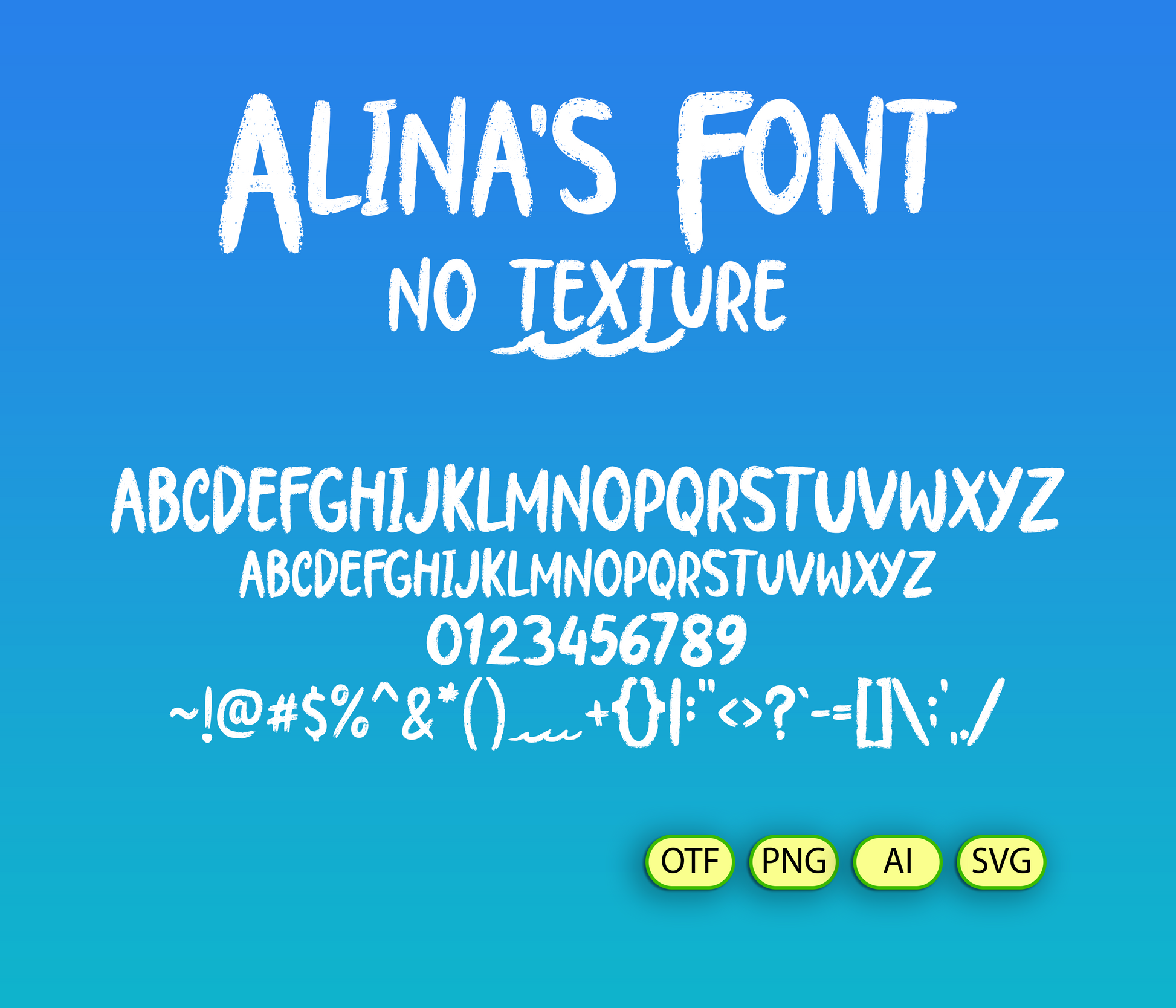
Silenzio Bruno Adventure Font
Capture the charm and whimsy of the Italian Riviera with our Adventure font, perfect for evoking the playful and heartwarming spirit of a beloved animated film. Ideal for fans, event planners, and designers looking to bring a touch of coastal magic to their projects, this font ensures your creations resonate with joy and friendship.
Inspired by the picturesque setting and adventurous tale of a young boy and his friends, this font features smooth, flowing lines and casual, hand-drawn aesthetics that mimic the artistic style of the film. It's designed to evoke feelings of sunny days by the sea and carefree childhood escapades. The complete character set includes uppercase and lowercase letters, numbers, and special symbols, making it versatile for a broad array of uses:
Our Adventure font is not just a tool for typography; it’s a way to bring the enchanting world of the story into your creative endeavors. Whether you’re designing promotional materials for a summer festival, creating custom merchandise, or enhancing educational content, this font lets you channel themes of friendship and discovery in every word and design. Ready to make your projects as lively and memorable as a scooter ride along the Italian coast? Let this font help you capture the essence of an adventurous magical journey.